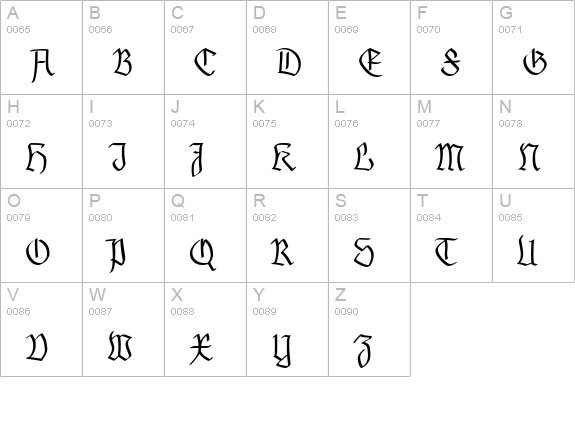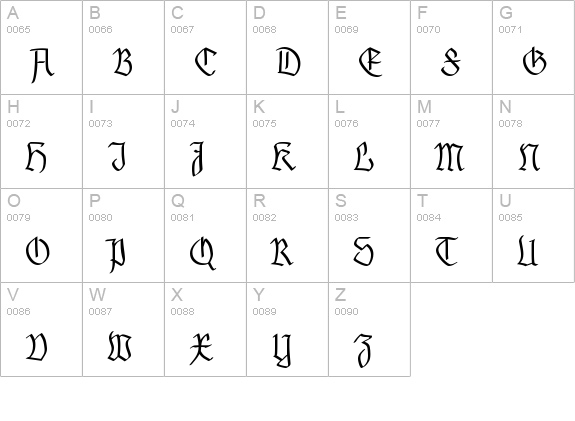
Gothamburg Font Details
Gothamburg font is a striking and modern typeface that beautifully combines Gothic elements with a contemporary twist. Its sharp edges and bold lines give it a unique and edgy look, making it perfect for a variety of design projects. Whether you're creating posters, logos, or branding materials, Gothamburg font will make your text stand out and grab attention. What's even better is that Gothamburg font is completely free to use! You can download it easily at FontsMarket.com and start using it in your projects right away. Don't miss out on this fantastic opportunity to add a touch of Gothic flair to your designs with the stylish and versatile Gothamburg font.